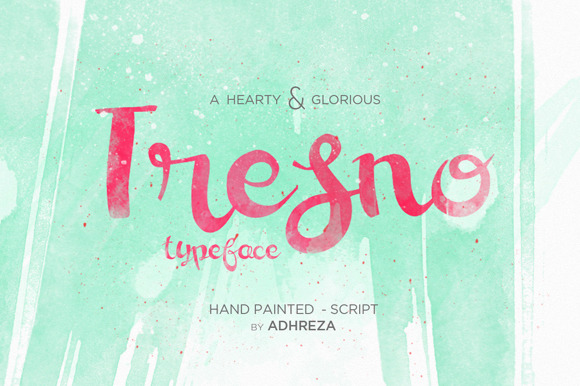
Tresno Typeface
Tresno (love ;Javanese) Typeface is my first hand painted/script/display font that inspired by the feeling between lovely & passion to explore my works so far. It defined by the phrase (in the picture) "Witing Mulyo, Jalaran Wani Rekoso (Javanese) that means "Gloriousness be obtained for daring to struggle"